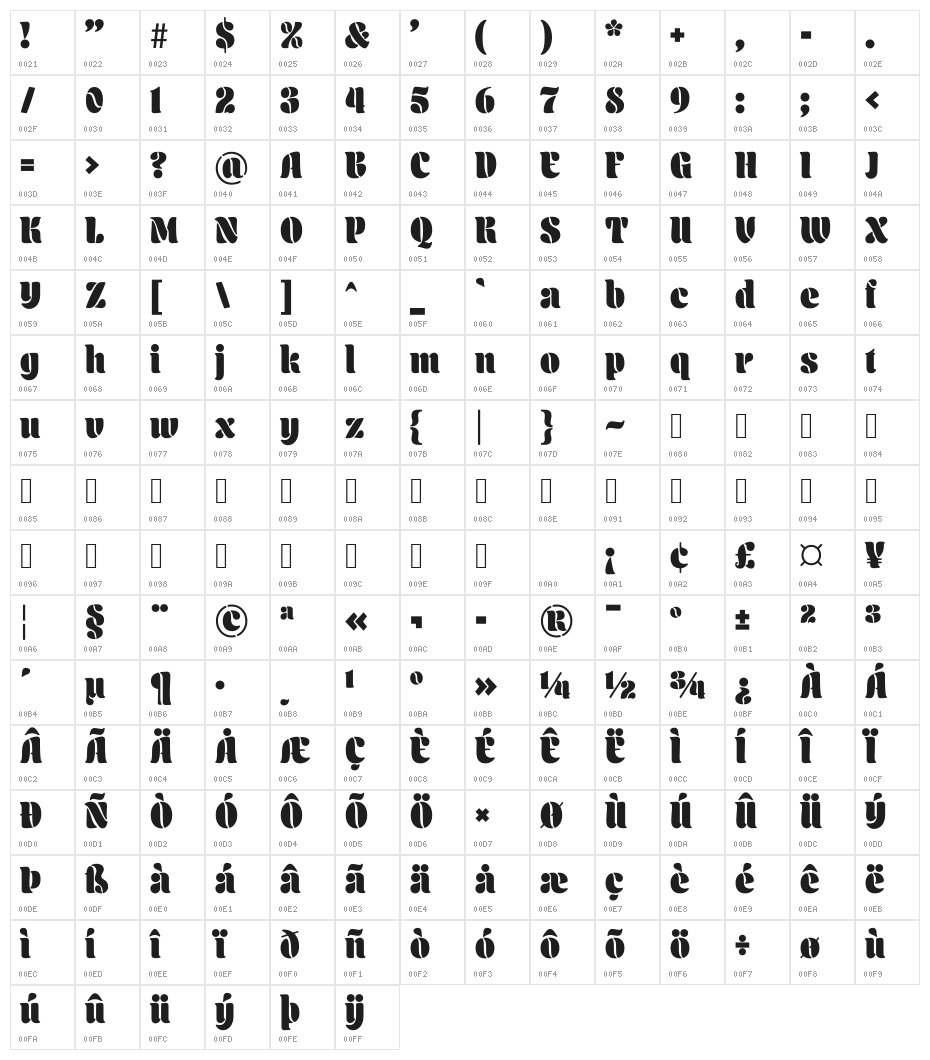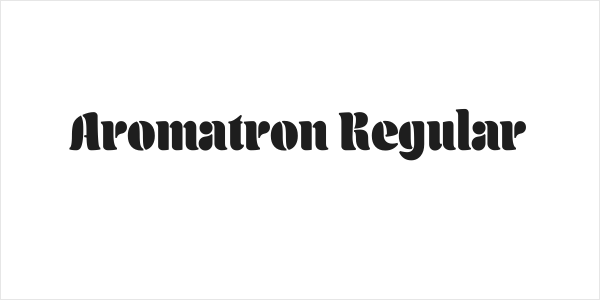
Aromatron Regular Font
Aromatron Regular Description
This font features a bold and striking design with thick, rounded strokes that create a strong visual impact. The characters are crafted with a unique blend of modern and vintage elements, making them stand out with their distinctive curves and edges. The uppercase and lowercase letters maintain a consistent style, while the numerals and special characters complement the overall aesthetic. The font's boldness and high contrast make it ideal for attention-grabbing designs.
Overall StyleModern, Vintage
Proposed ProjectsIdeal for branding, poster design, headlines, and any project requiring a bold statement.